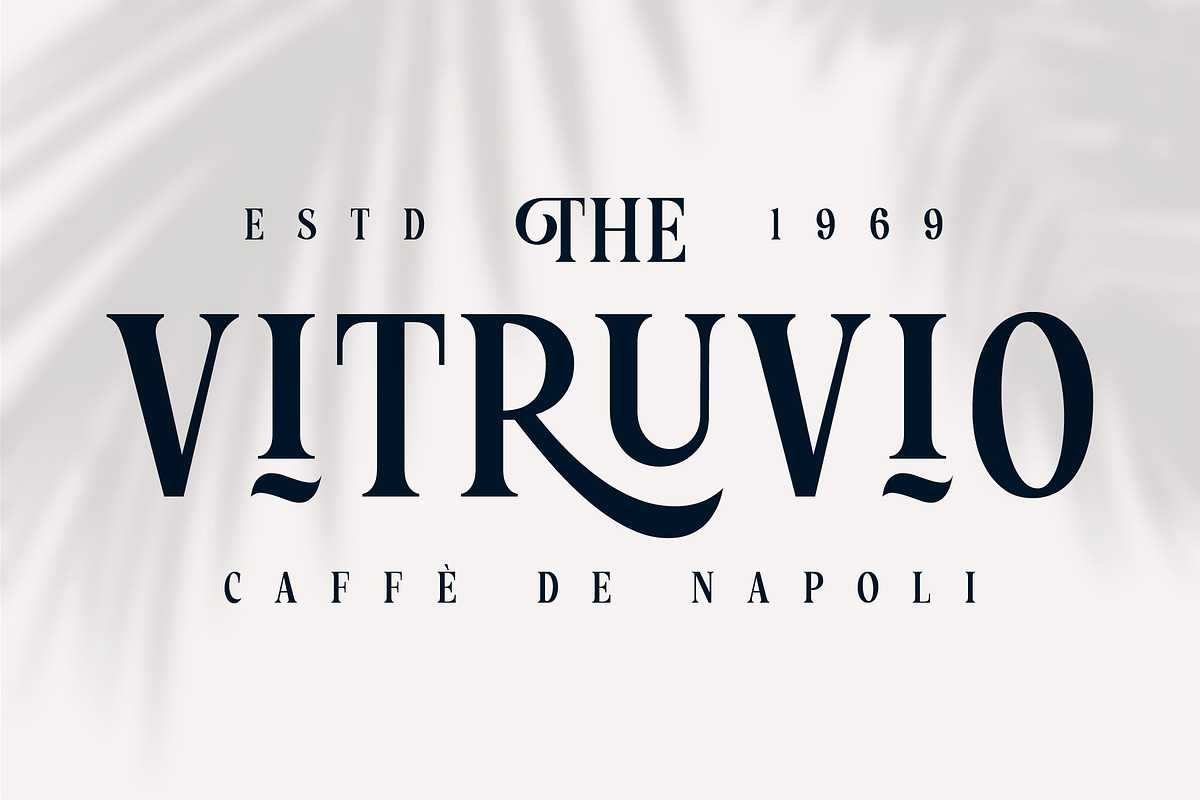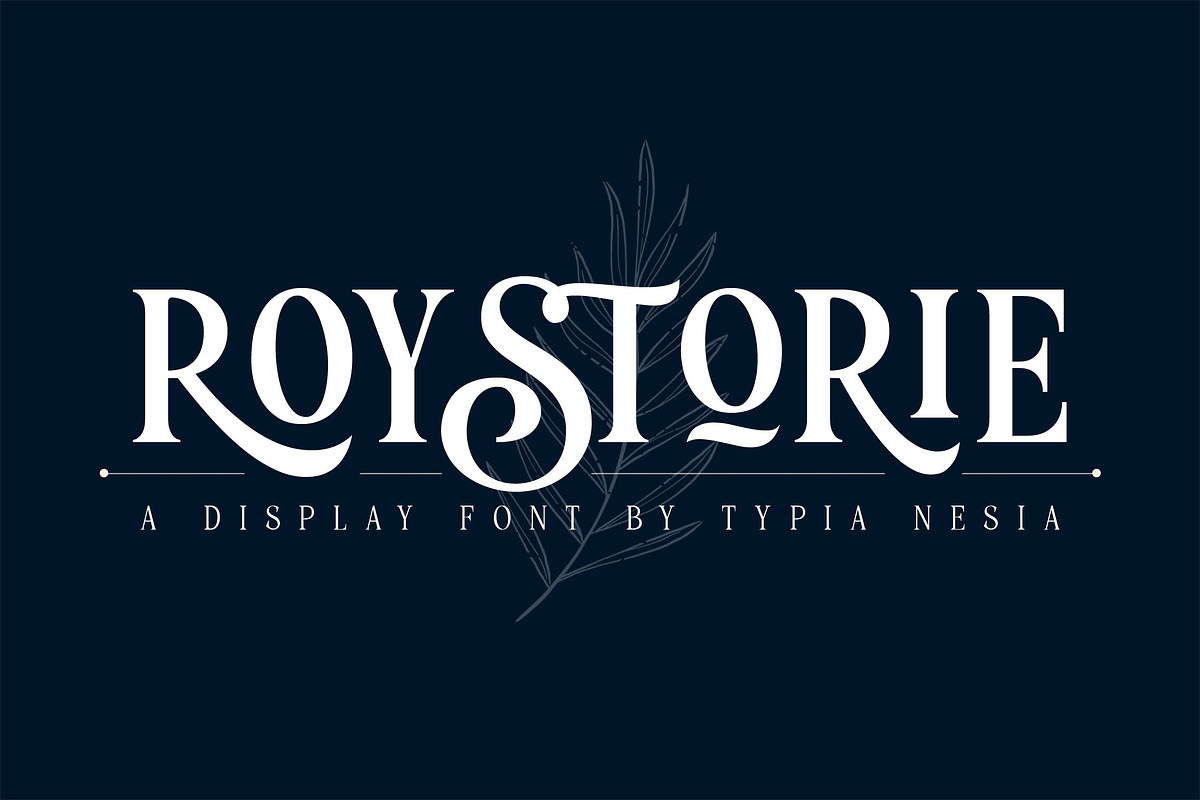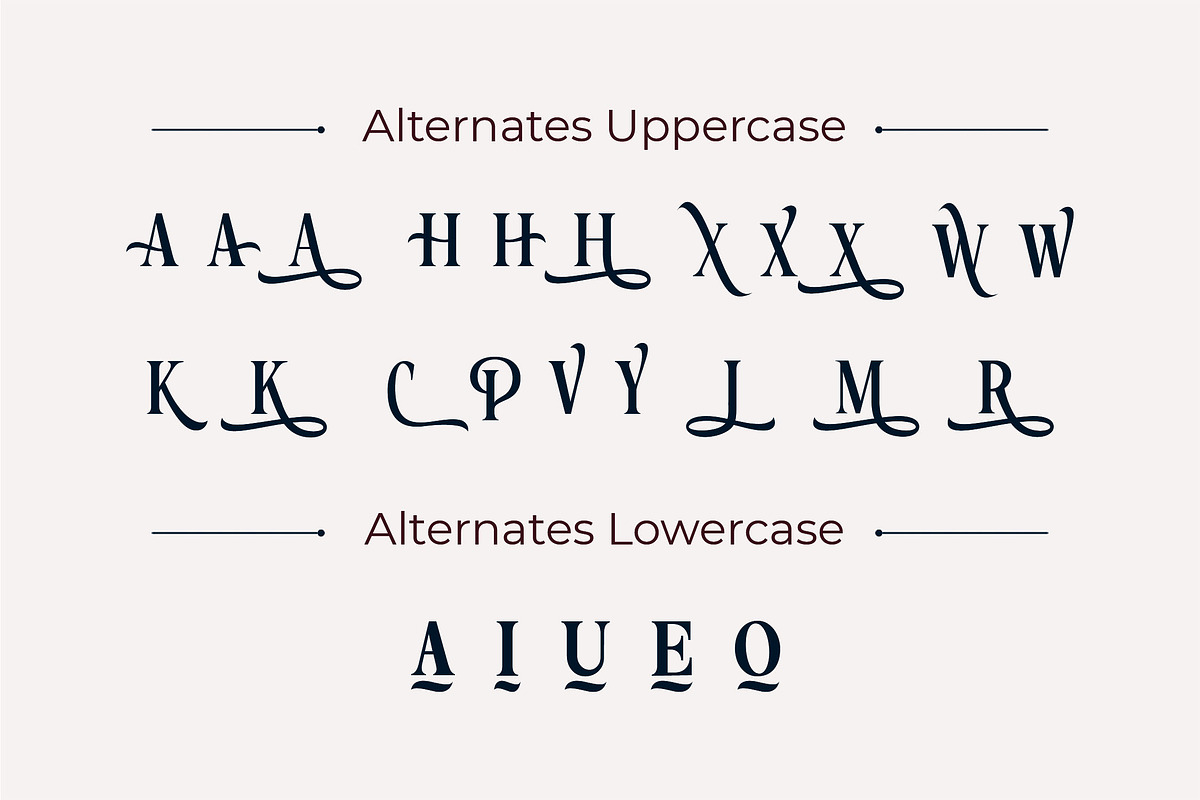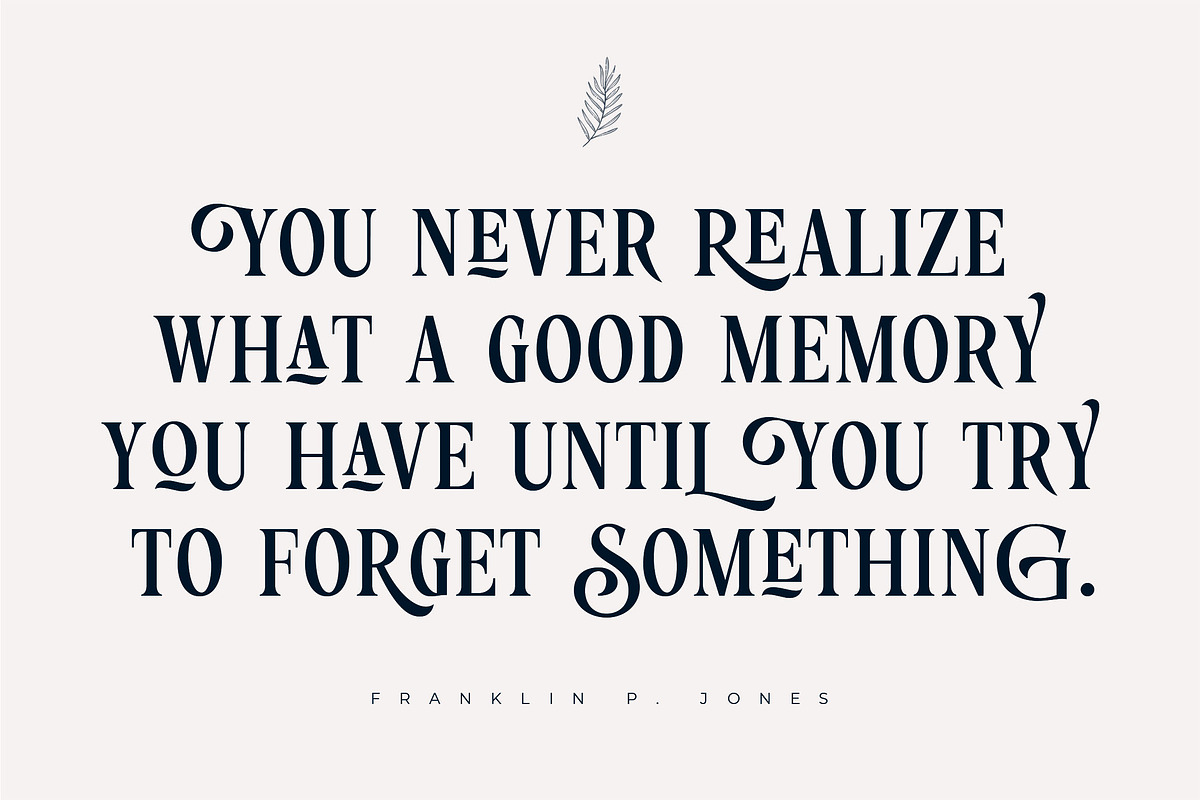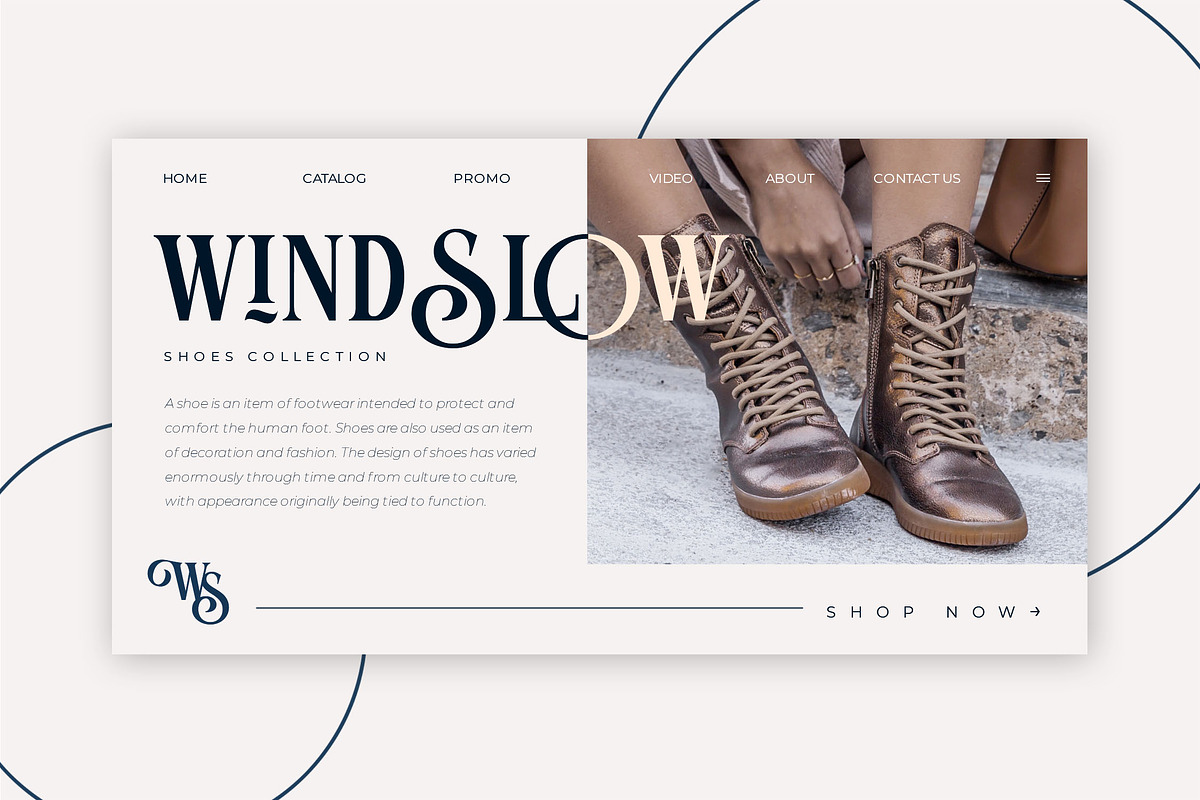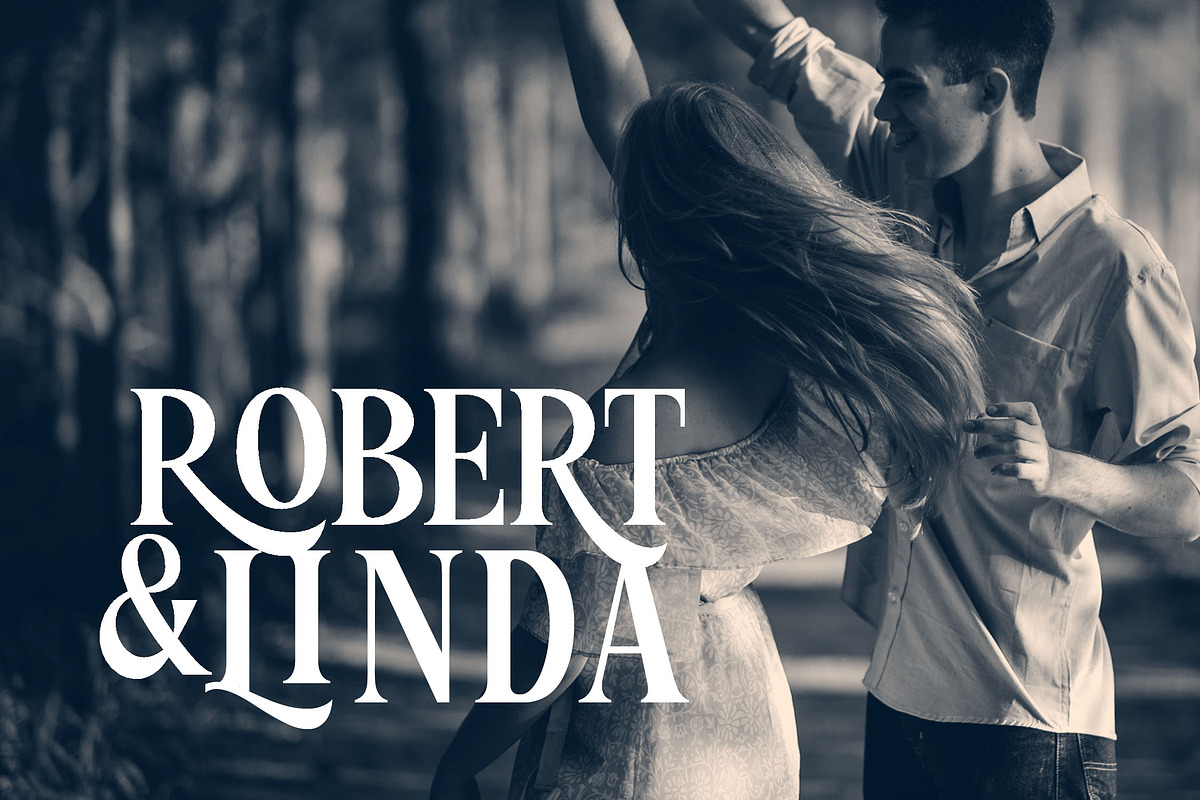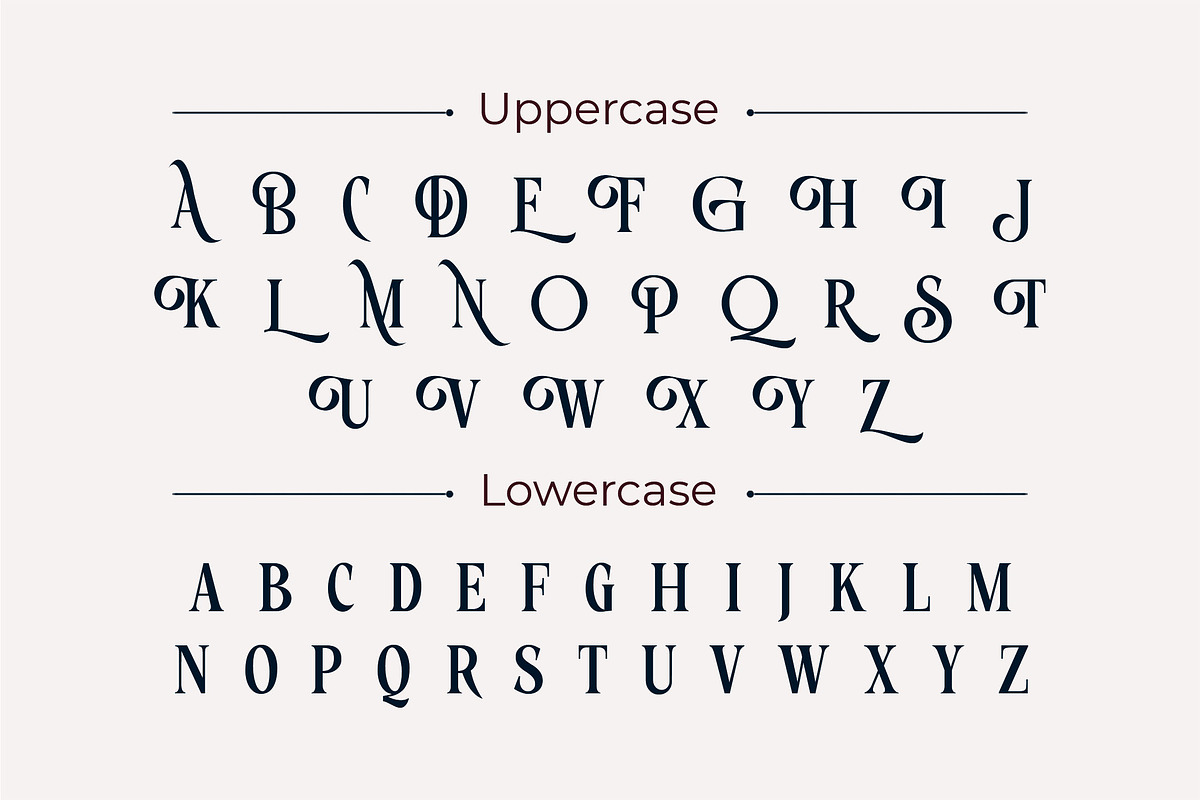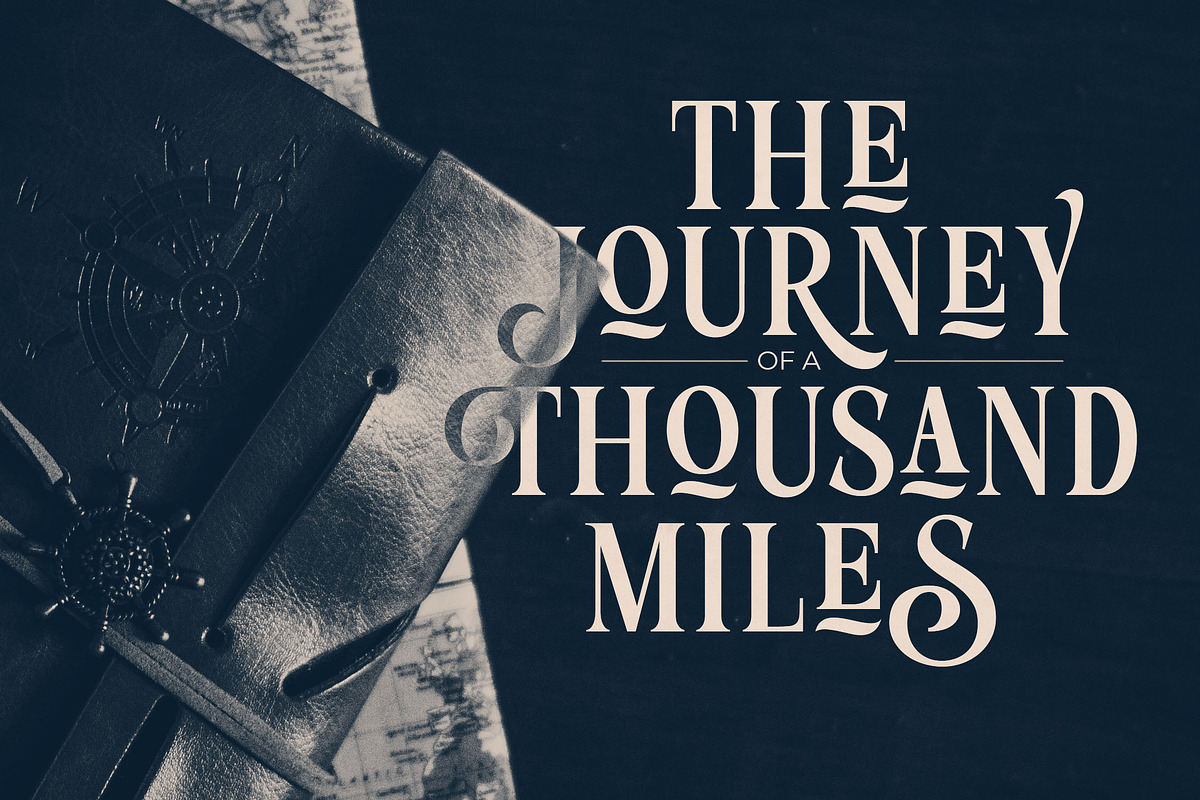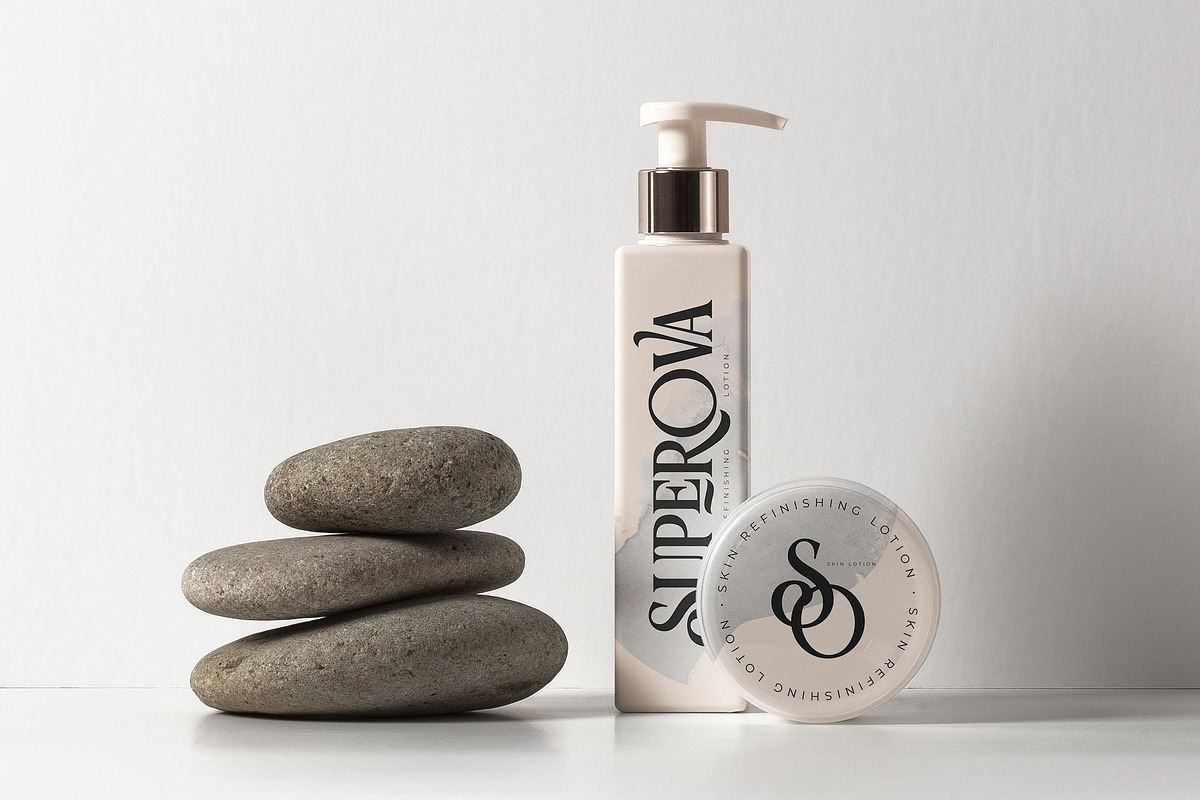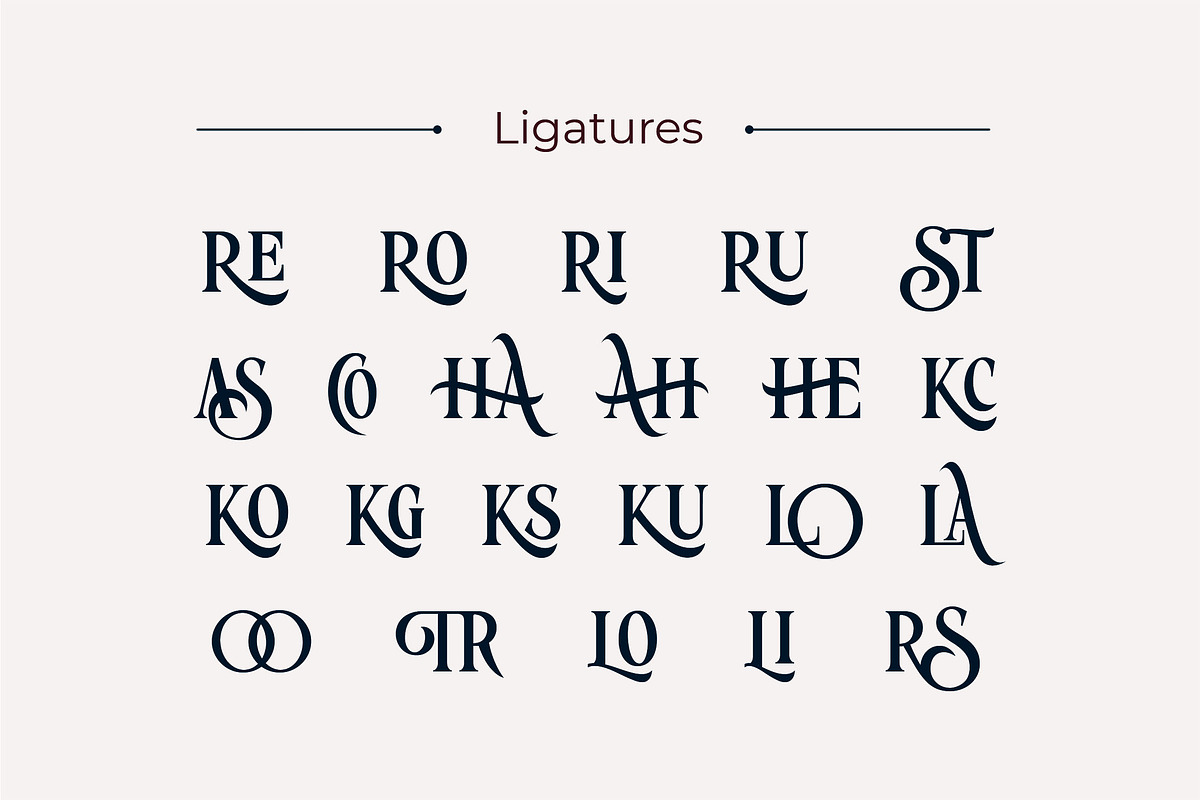
Roystorie Display
Roystorie Display Serif - Elegant Luxury serif font
Roystorie Display Serif font is perfect for your up coming projects. Such as luxury logo and branding, classy editorial design, magazine, fashion promotional, boutique branding, stationery design, blog design, modern advertising design, card invitation, art quote, home decor, book/cover title, special events and any more.